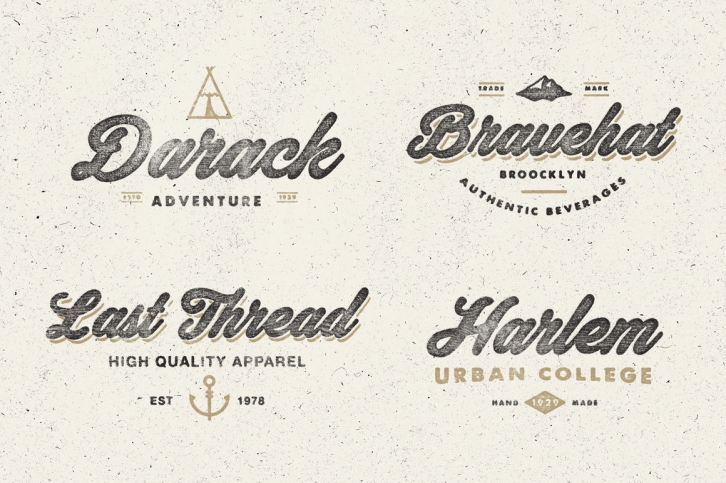
Let's meet Thander! A round bold script that really brings the classic and personal feel to life. Thander is a combination of brush lettering and speed writing. It is thick, tight, and have irregular shapes to make it feel much more personal. Use it in your lettering project, display, headline, branding, logo or any vintage design styles such as hipster badges or insignias. File Included : - Thander.otf (OpenType) - Thander.ttf (TrueType)